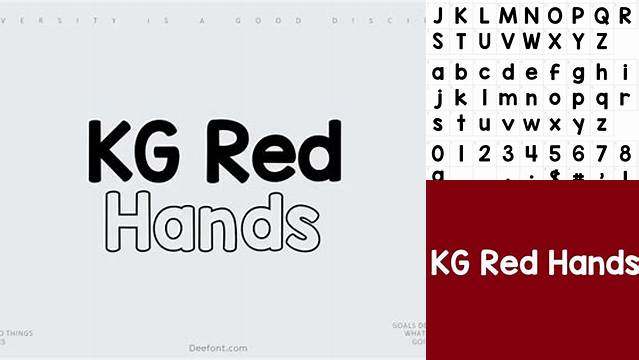
Free KG Red Hands Font Download
Are you ready to inject some personality and pizzazz into your designs? Look no further! This guide is your ultimate resource for everything related to the free font download KG Red Hands. We'll dive deep, exploring its unique characteristics, how to snag it for free, and how to wield its artistic power like a pro. Whether you're a seasoned graphic designer, a budding blogger, or just someone who loves to play around with fonts, KG Red Hands is a fantastic choice to add a touch of handwritten charm to your projects. So, buckle up, because we're about to embark on a typographic adventure!
Unveiling the Charm: What Makes KG Red Hands Special?
KG Red Hands isn't just another font; it's a statement. It's the digital equivalent of a friendly, handwritten note, exuding warmth and approachability. When you choose free font download KG Red Hands, you're opting for a font that instantly humanizes your designs. This is because of its casual, slightly imperfect style; it feels authentic and genuine, which can be a breath of fresh air in a world dominated by sleek, polished fonts. Guys, think about it: how many times have you seen a design that feels cold and impersonal? KG Red Hands is the antidote! The font's playful nature makes it ideal for various applications, from crafting eye-catching headlines to adding a personal touch to your social media graphics. It's perfect for projects that need a bit of personality, such as invitations, greeting cards, and even children's books. The font's readability ensures that your message is clear, despite its handwritten style. You will find that the font's versatility is one of its biggest strengths. It can be paired with a wide array of other fonts, from clean sans-serifs to elegant serifs, to create striking and balanced designs. Experimentation is key! Try using KG Red Hands for a headline and a simple sans-serif for the body text. See how it enhances the overall look of your website. Because of the way the font is designed, it creates a visual hierarchy that naturally guides the reader's eye. The handwritten style immediately draws attention, while the supporting font provides clarity and structure. Ultimately, the charm of KG Red Hands lies in its ability to transform ordinary text into something captivating and memorable. Its unique blend of friendliness, approachability, and versatility makes it a true gem for any creative project. If you're looking for something to add a touch of that handwriting style, you are in the right place!
When you do a free font download KG Red Hands, you'll find it has several distinguishing features that set it apart. The most obvious is its handwritten style, which instantly conveys a sense of warmth and personality. The font's strokes are slightly irregular, giving it an authentic, human feel. This is important if you want to appear to be authentic. In contrast to perfect, machine-made fonts, KG Red Hands feels as if it was written by a real person, which can make your designs more relatable and engaging. Another notable characteristic is its legibility. Despite its informal style, KG Red Hands is remarkably easy to read, even at smaller sizes. The characters are carefully crafted to ensure clarity without sacrificing the handwritten aesthetic. Its readability makes it suitable for body text, especially in projects where you want to create a friendly and inviting atmosphere. Also, the font typically includes a full set of characters, including uppercase and lowercase letters, numbers, and punctuation marks. This allows you to use the font seamlessly in a wide range of applications, from short headlines to longer paragraphs. And the kerning, or the spacing between letters, is carefully adjusted to optimize readability and create a visually appealing flow. When selecting the font, you will find this to be an important part of the overall design. It's easy to see how it enhances the user experience. Lastly, KG Red Hands often supports multiple languages, making it a versatile choice for projects with a global audience. This broad compatibility helps ensure that your message will be effectively communicated across cultural boundaries.